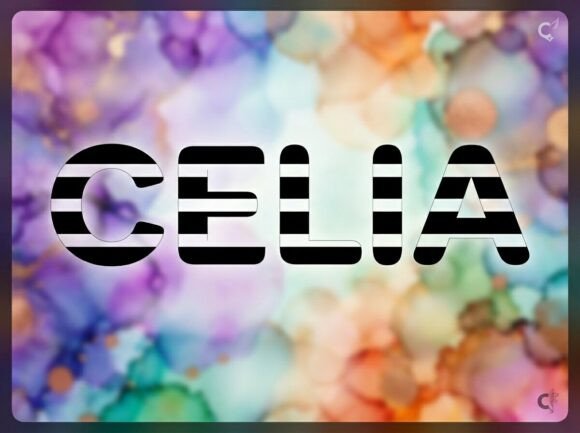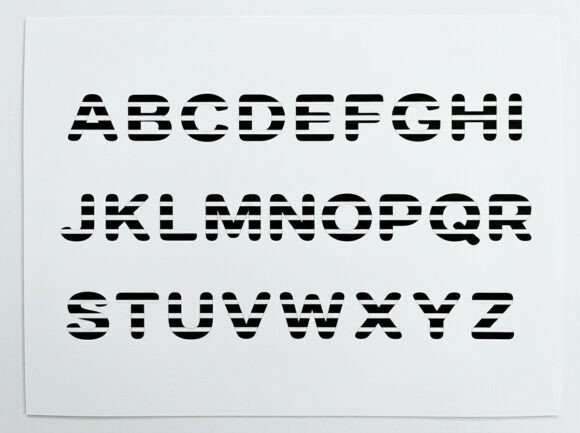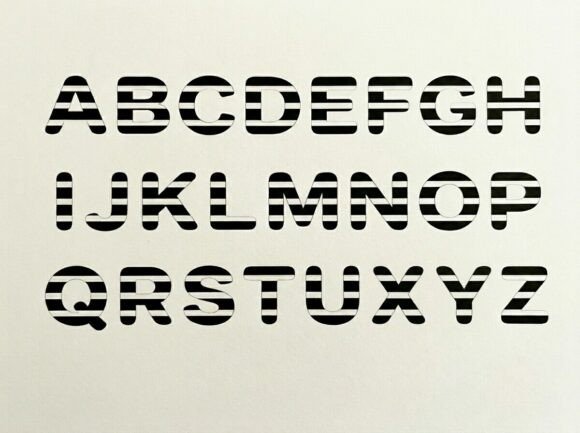
The Celia Font: A Game-Changer for Bold and Creative Designs
Have you ever been in the middle of a design project, and suddenly, you’re stuck on finding the perfect font? I recall a recent experience where I was working on a luxury packaging project, and my client asked for a font that would make their brand stand out. After hours of searching, I stumbled upon the Celia Font, and it completely transformed my design. In this article, I’ll share my journey with Celia Font, its features, and how to make the most of this stunning typeface.
What Makes Celia Font Special?
Celia Font is an avant-garde decorative display font designed to be the focal point of any composition. Its commanding visual personality and unique artistic flourishes make it perfect for creators who refuse to blend in. This font boasts a strong, artistic soul while maintaining a high-end, polished finish, making it suitable for luxury packaging, experimental editorial layouts, and more.
Ideal Use Cases
- High-impact headlines
- Signature logos & branding
- Conceptual packaging
- Poster & social media design
✨ PLEASE NOTE: This font is an All-Caps (Uppercase Only) display typeface. By omitting lowercase characters, the designer has focused entirely on the intricate craftsmanship of every individual letter, ensuring each one acts as a standalone work of art.
Honest Review
- ✨ Unique and artistic design that stands out in any composition
- ✅ High-end, polished finish perfect for luxury brands
- ⚡️ Versatile and can be used for various design projects, from packaging to posters
⚠️ Keep in mind that Celia Font is an all-caps typeface, which might limit its use for body text or longer content. Additionally, some design software might not support OpenType features, so it’s essential to test the font in your preferred program.
Celia Font was crafted by a talented designer who aimed to create a typeface that would inspire creativity and boldness. The designer’s passion for art and luxury is evident in every detail of the font, from its unique flourishes to its polished finish.
Q: Is Celia Font suitable for body text?
A: No, Celia Font is an all-caps display typeface, making it more suitable for headings, titles, and short text.
Q: Does Celia Font support OpenType features?
A: Yes, Celia Font supports OpenType features, including glyphs and stylistic alternates, which can be accessed in compatible design software.